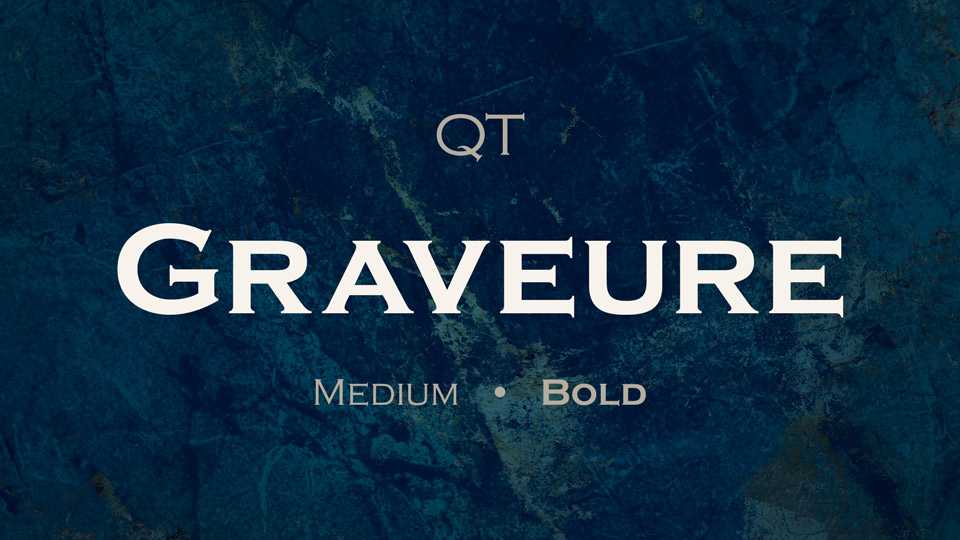
Download Graveure typeface, a classic sans serif font family, based on the venerable Copperplate Gothic, originally designed by Frederic W. Goudy in the early 1900s.